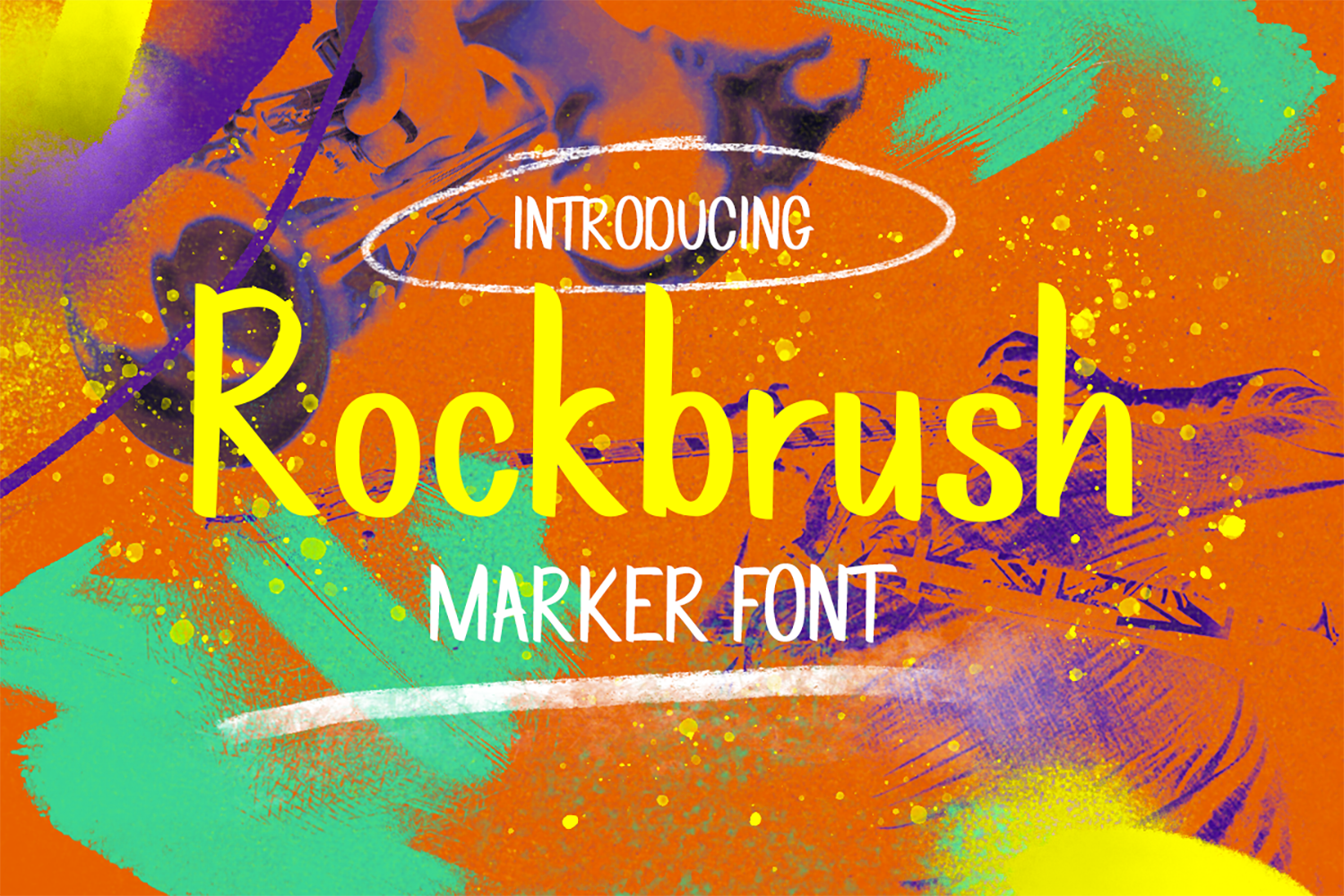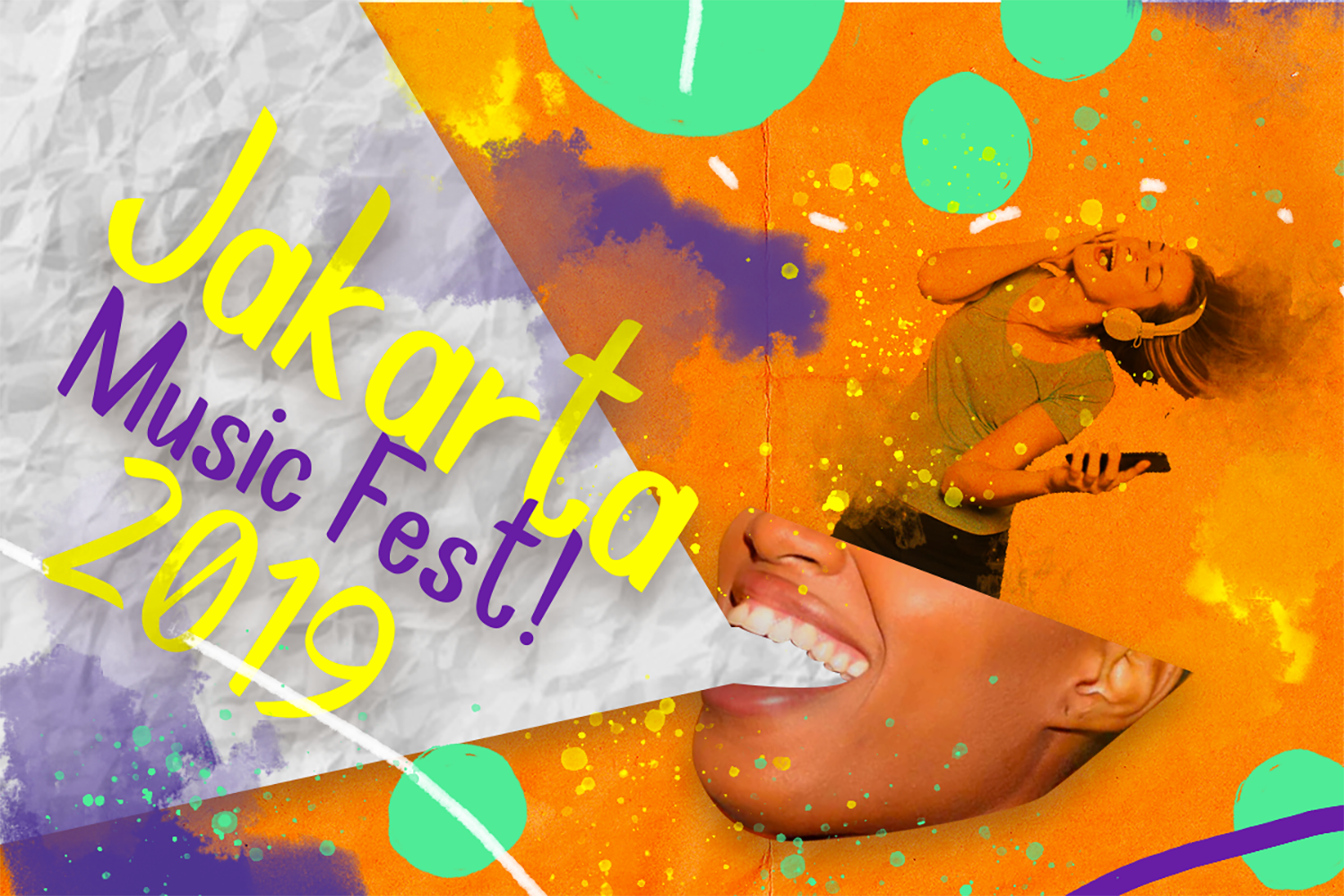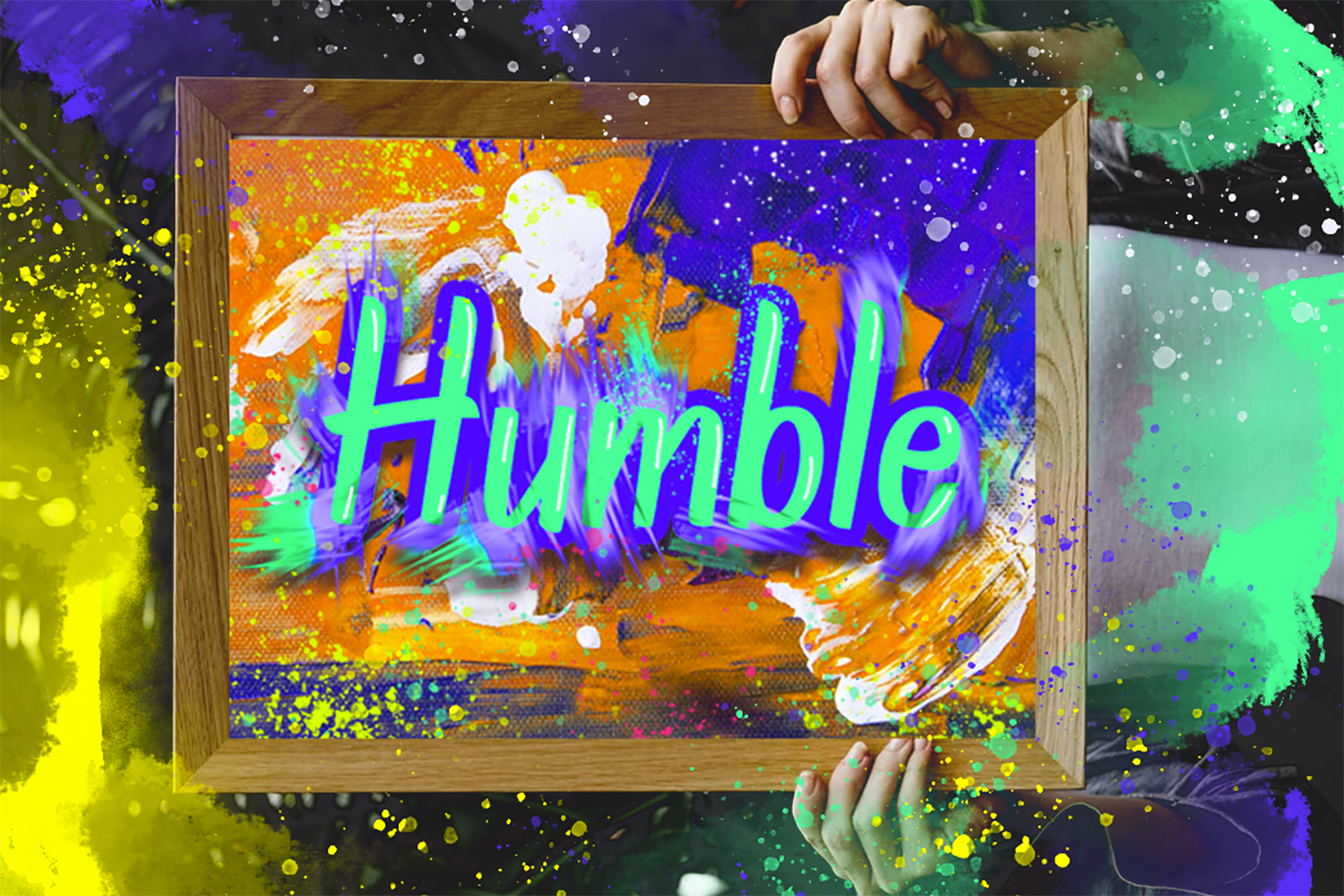
Rockbrush Marker Free Font
Rockbrush Marker Free Font is a display marker font with a modern look and energetic. Rockbrush Marker Free Font is ready and Perfectly fit for your logo designs, music projects & social media posts, event poster, brand imagery, product packaging, handwritten quotes, merchandise, etc. More importantly, please don’t hesitate to drop me a message if you have any issues or queries. This free typeface was designed by talented Rizka Prayuda. If you like it don’t forget to check out the full version.